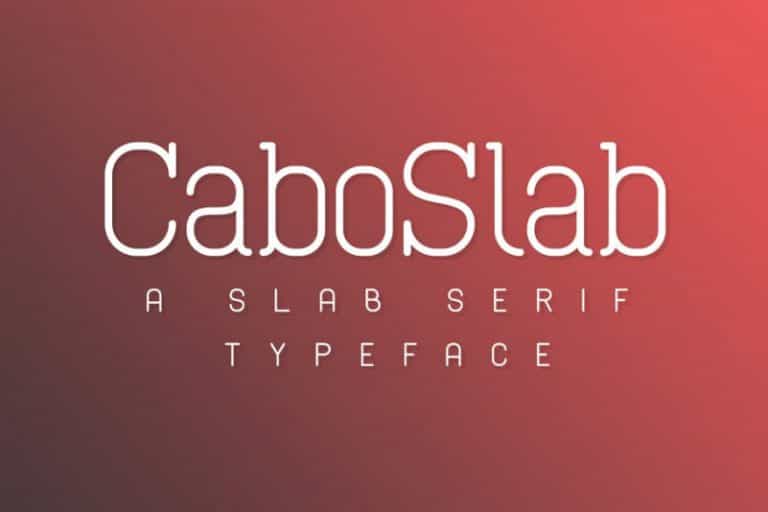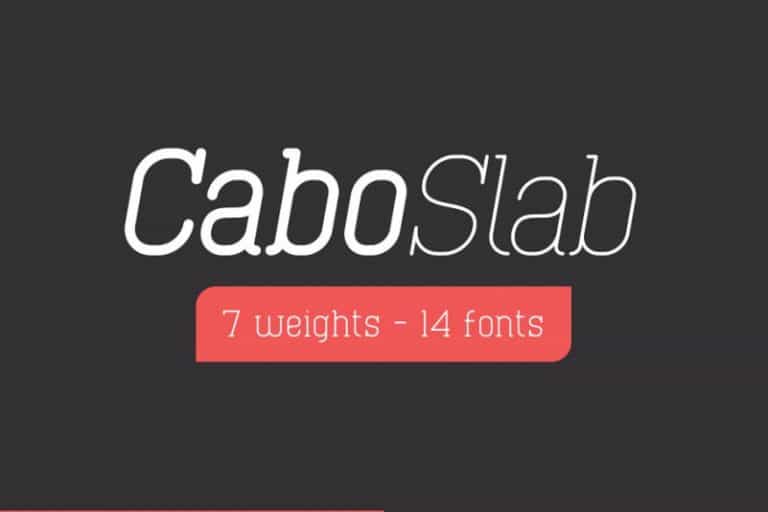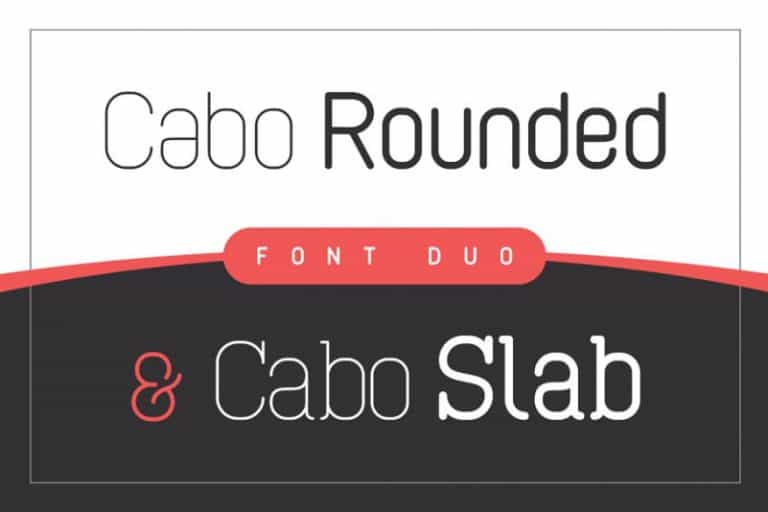
Cabo Rounded and Slab Font Duo
Cabo Rounded and Slab Font Duo are now part of our font family. It is made and distributed by Design a Lot. Cabo Typefaces, a font duo which consists of a sans-serif and a slab serif typeface. They are both characterized by their smooth and contemporary style that is created by the rounded edges and terminations.